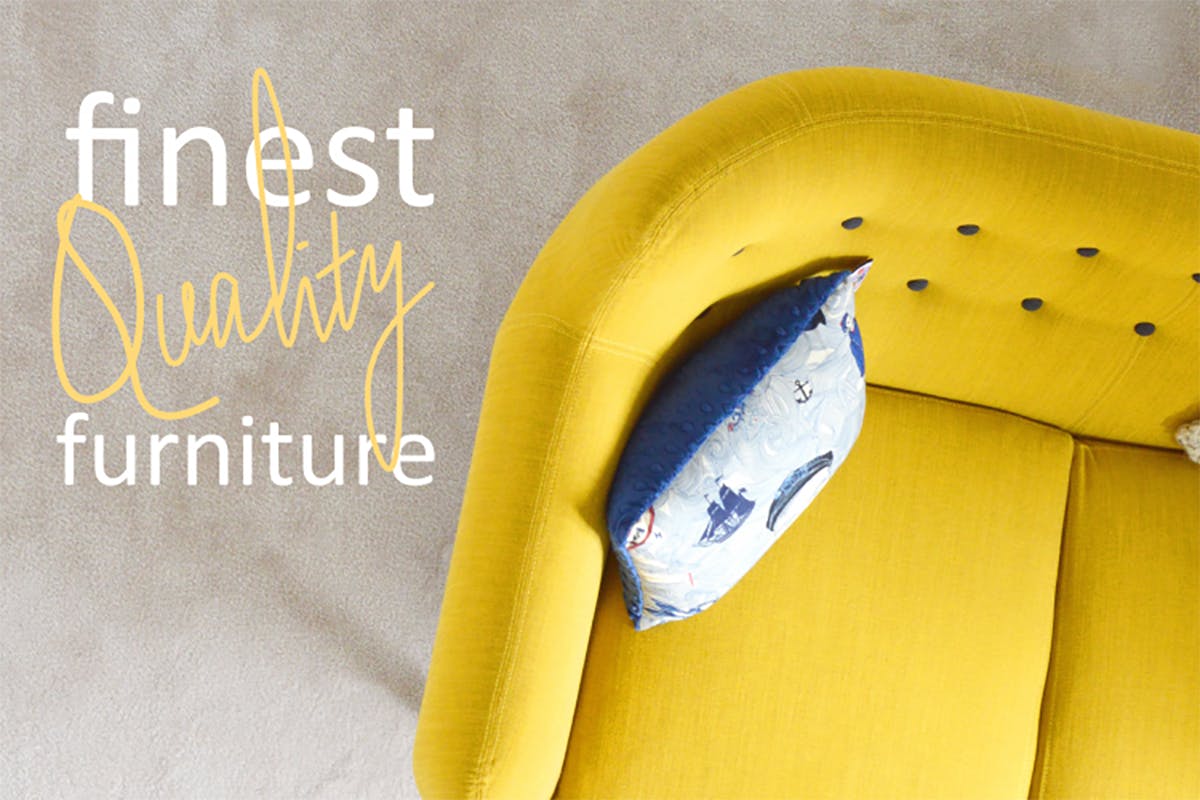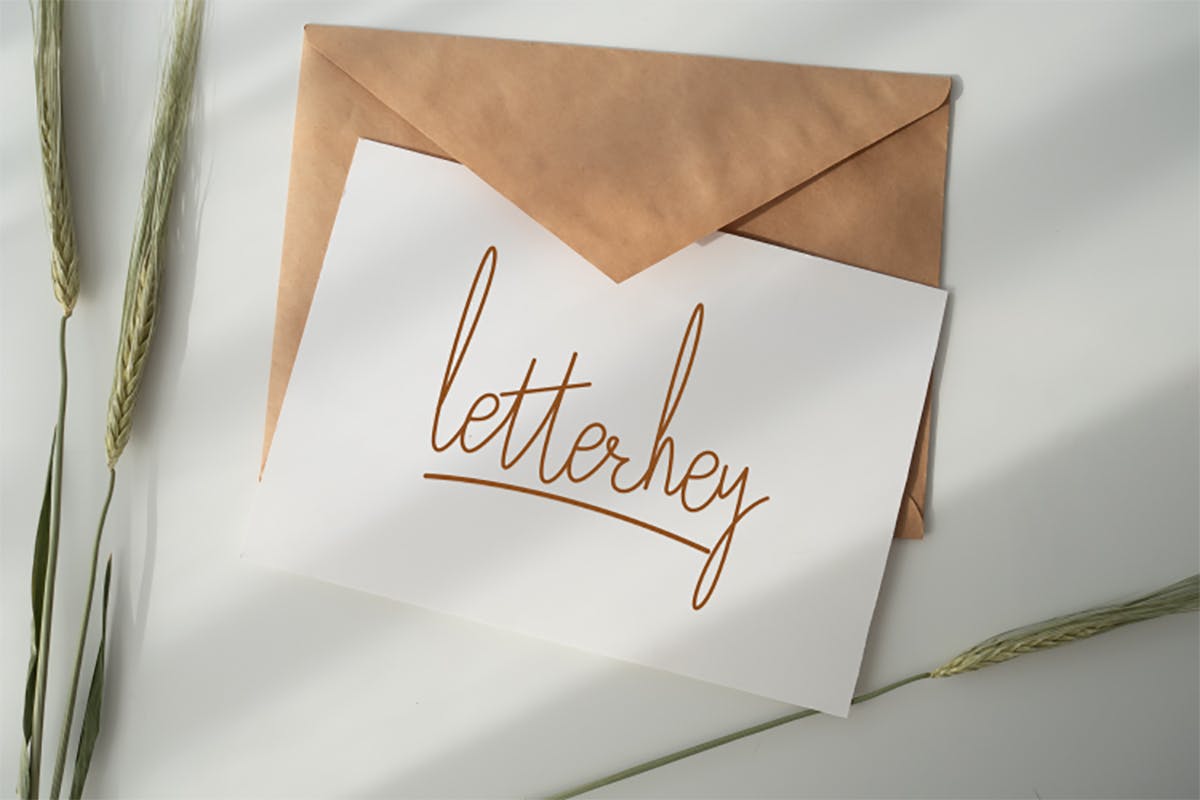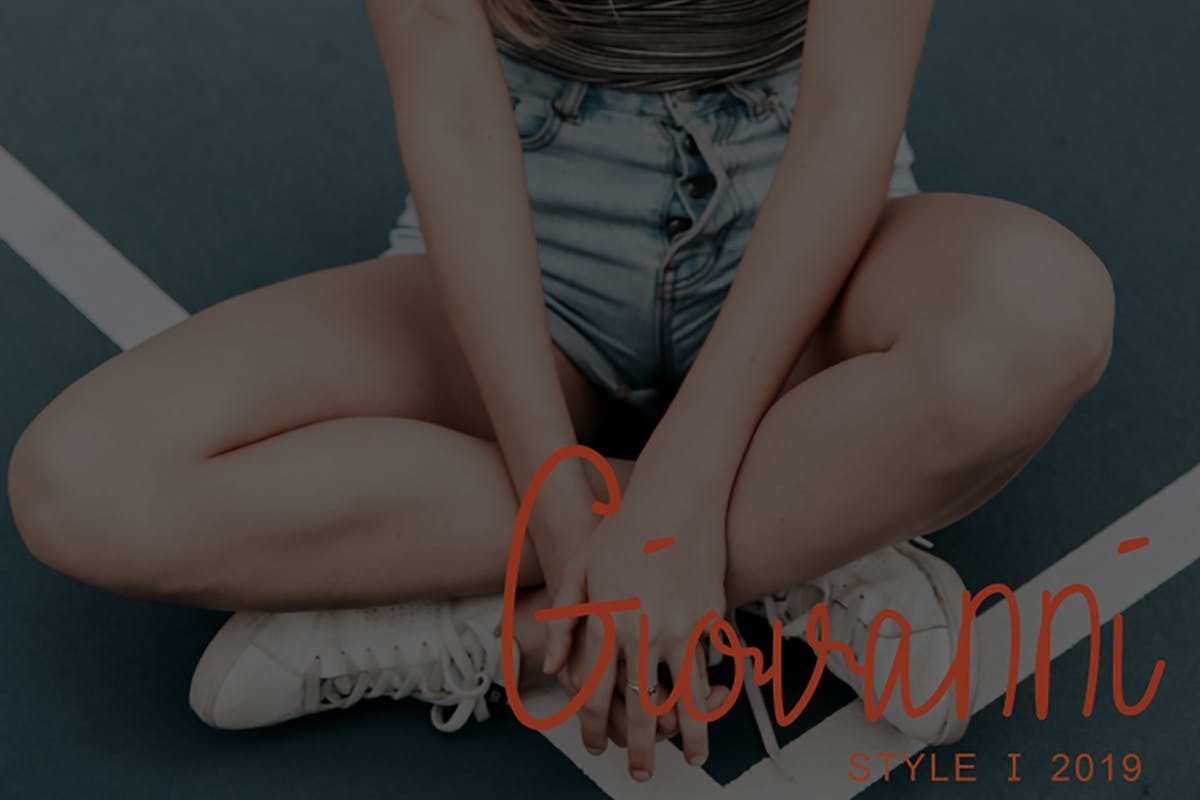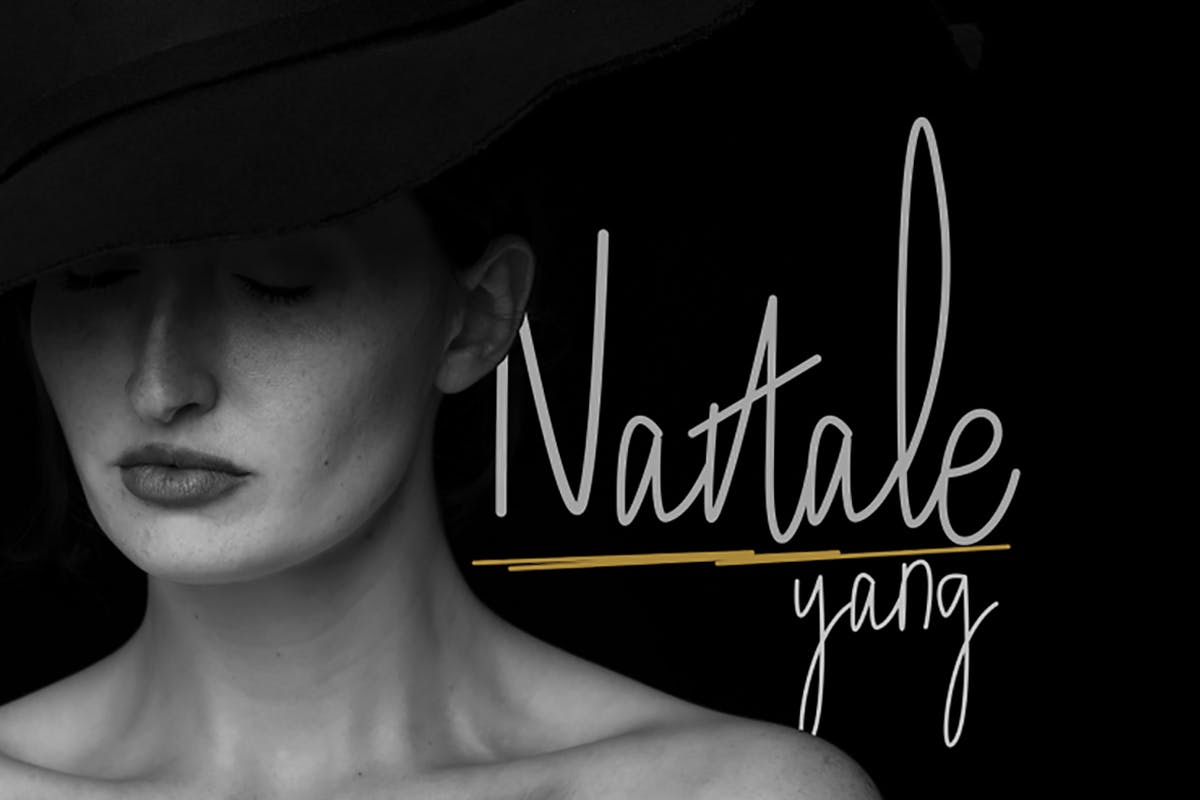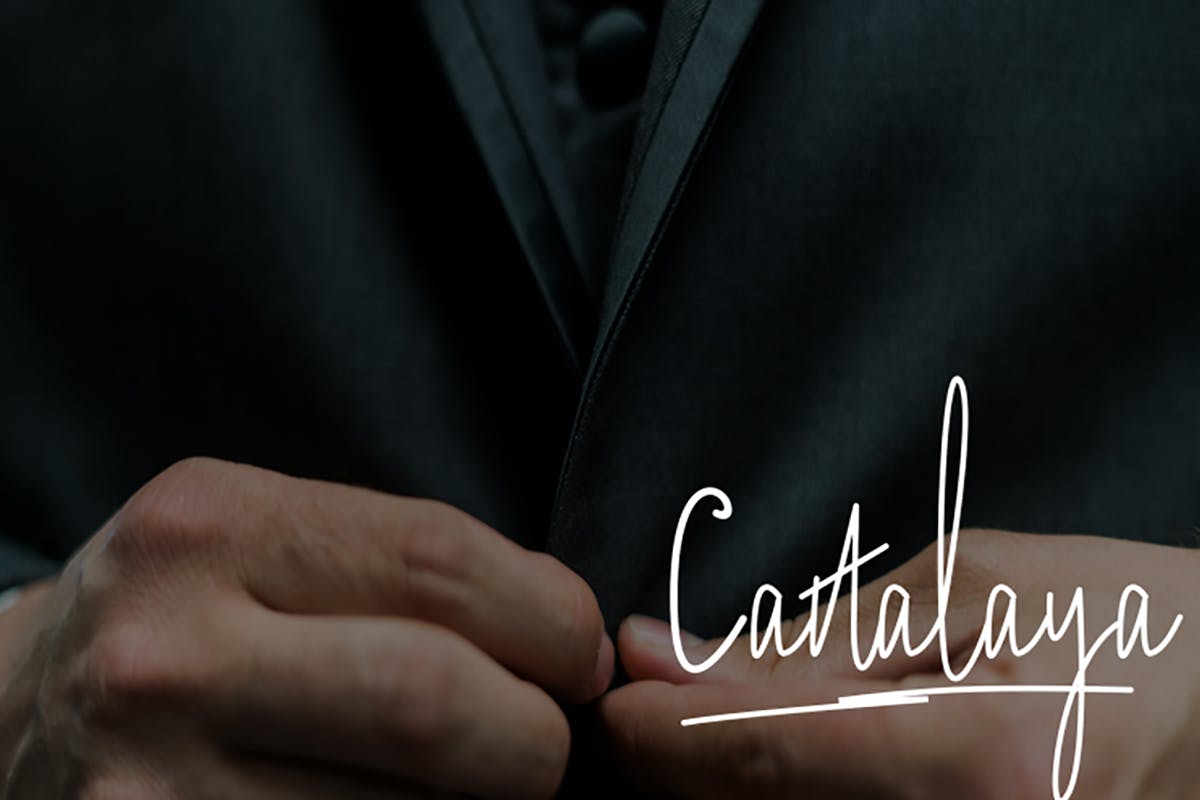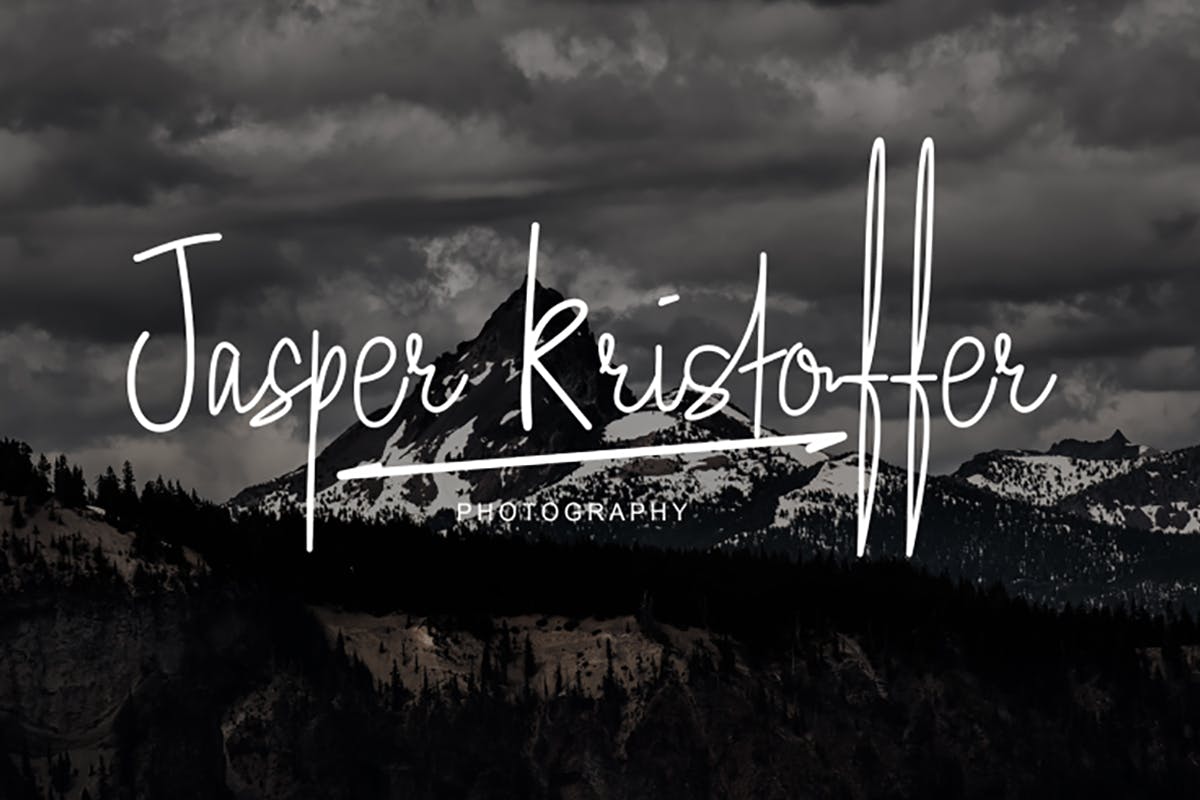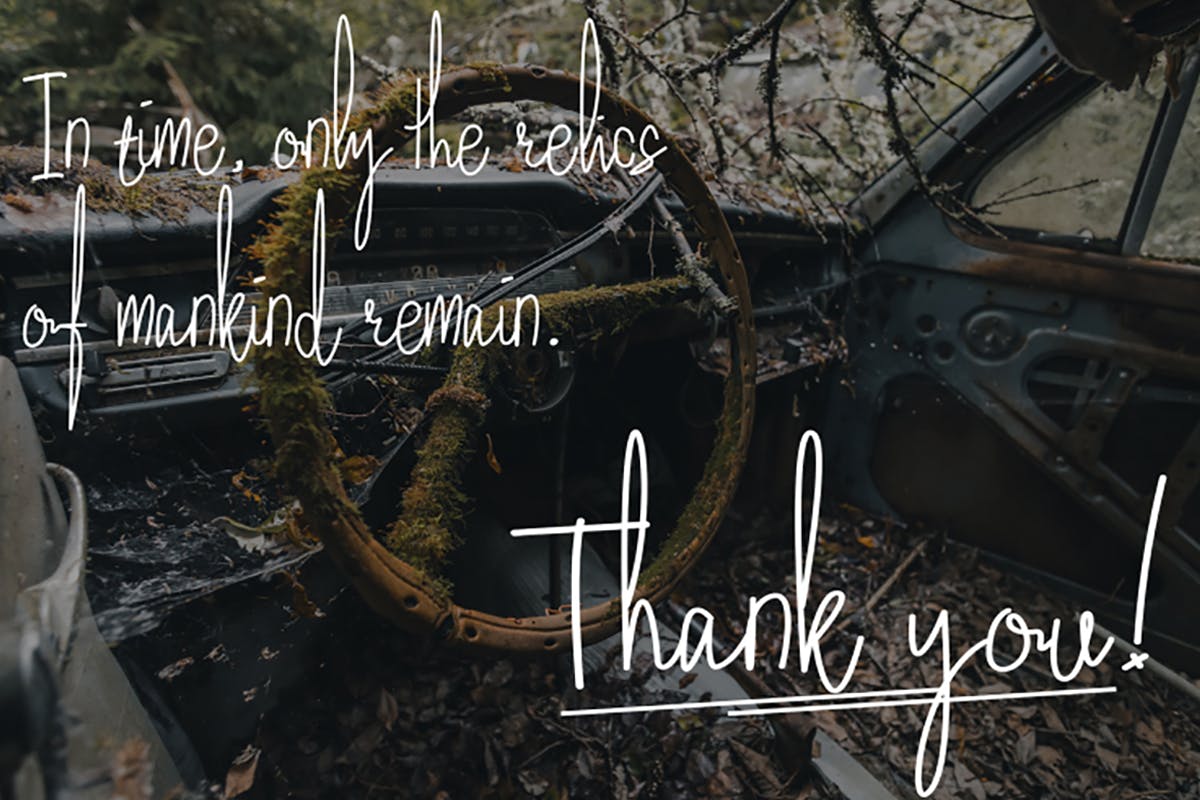
Free Demo Lettered Signature Font
Free Demo Lettered Signature Font is a font with a unique curve. It has some unique glyph styles that make your project look more professional. This awesome font can be useful for wedding invitations, flyers, gift cards, signature logo, and more. However, this free script font is only available for a personal use license, hence you can only use it for your personal project such as your digital product preview, your own business card, your own logo and more. In conclusion, you cannot use it on a commercial project.